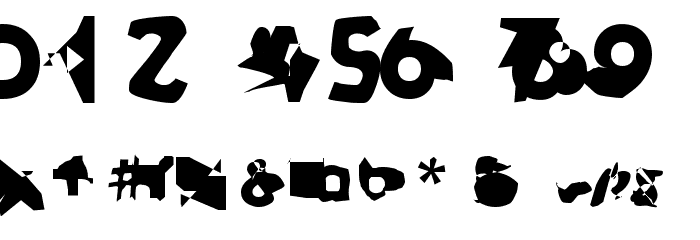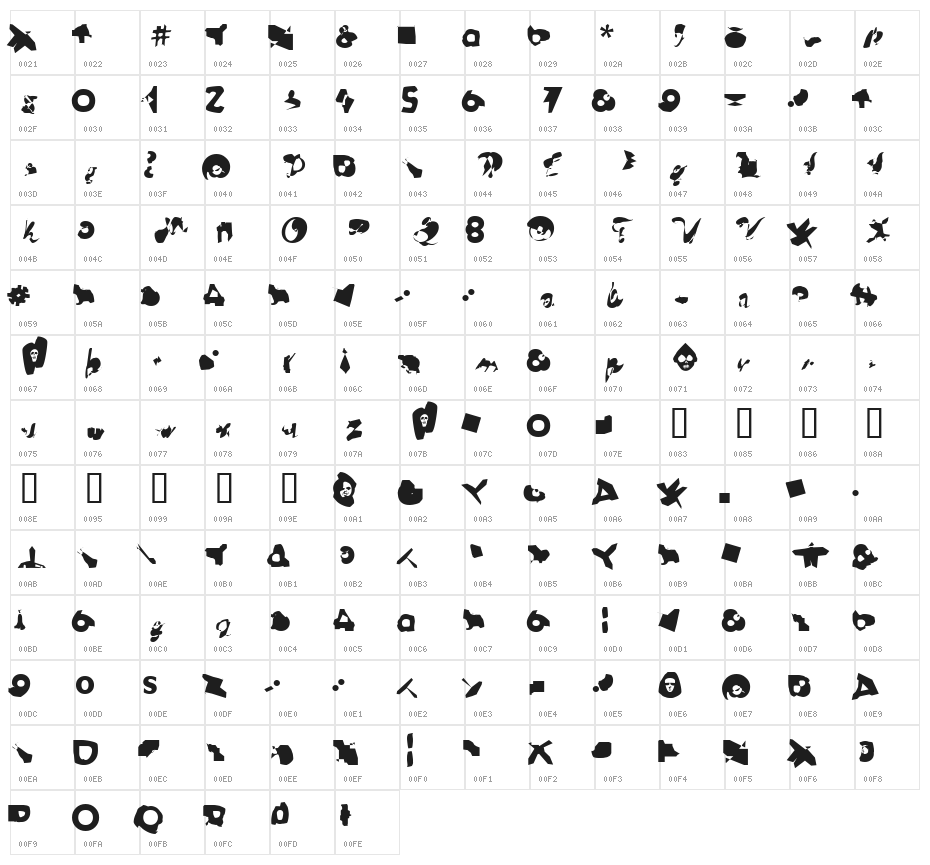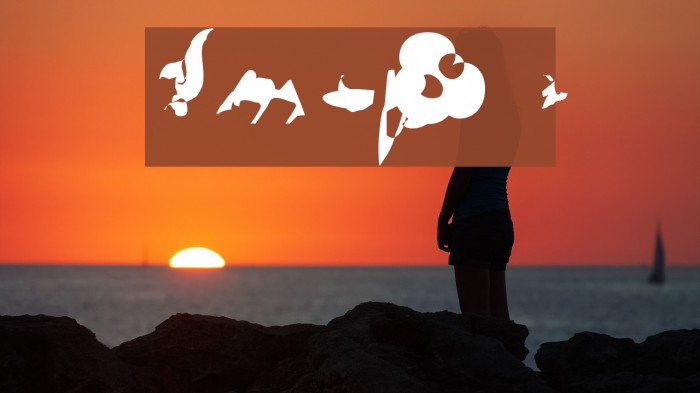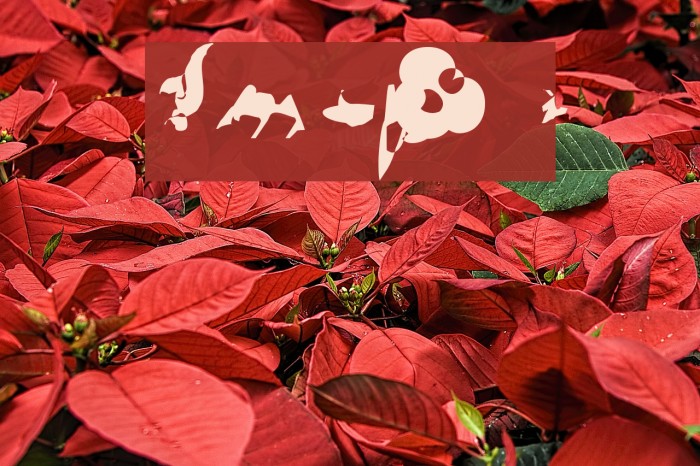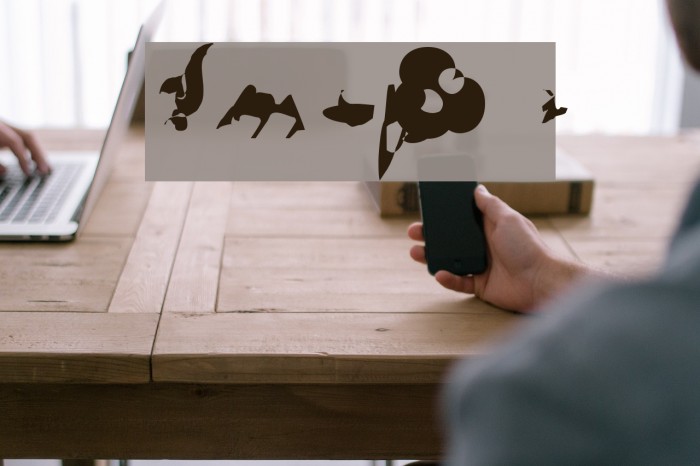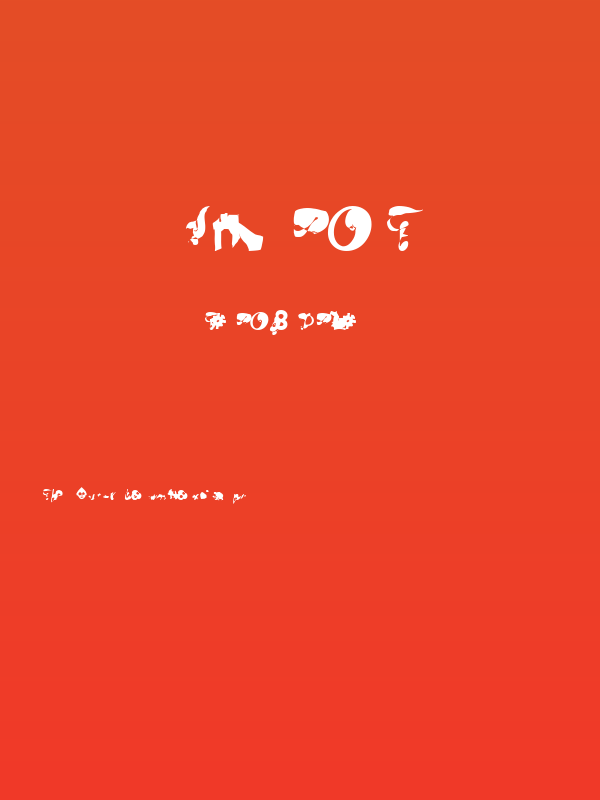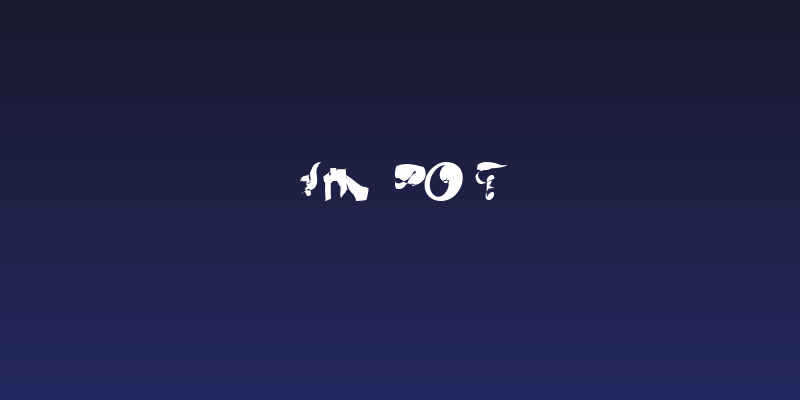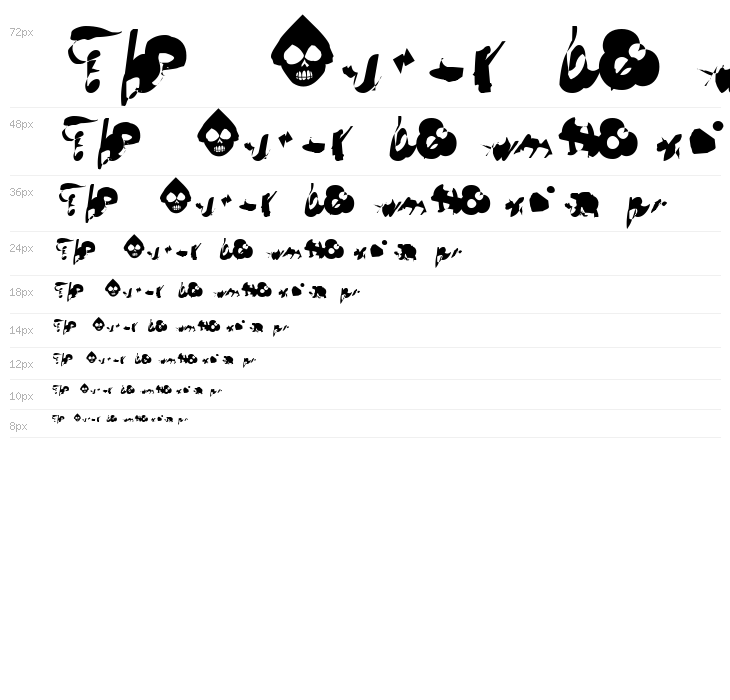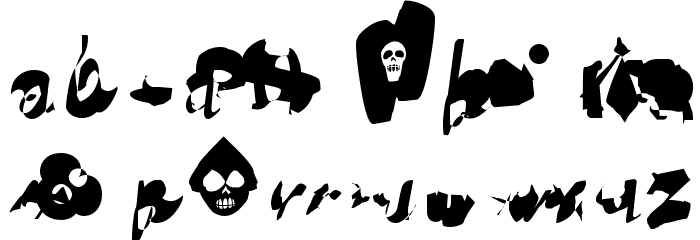
Incpot Font
Incpot Description
This font features a highly decorative and abstract style, with characters that appear fragmented and distorted. The design incorporates bold, irregular shapes and negative space, creating a chaotic yet intriguing visual effect. Some characters include graphic elements like skulls, adding a playful yet edgy touch. The overall appearance is unconventional and artistic, making it suitable for creative and experimental projects. The font's unique style challenges traditional readability, focusing more on visual impact and artistic expression.
| Use Case | Logos, Posters, Artistic Projects |
| Proposed Projects | Ideal for album covers, poster designs, or any project requiring a bold, artistic statement. |